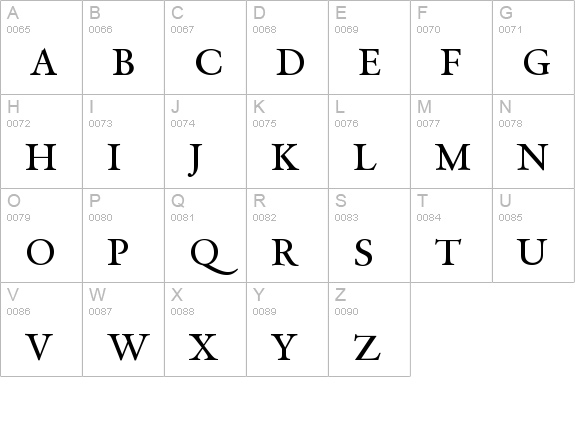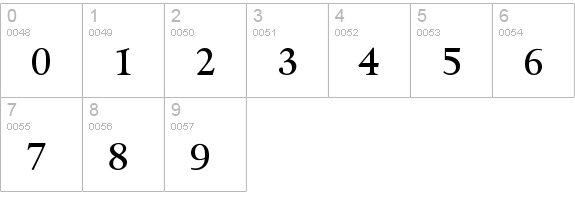
DTLVandenKeereD-Medium is a balanced, medium-weight variant in the DTLVandenKeereD typeface family \xE2\x80\x94 well suited to sub-headlines, navigation, and balanced editorial work.
DTLVandenKeereD-Medium is a classic and elegant font designed with meticulous attention to detail. With its balanced proportions and sophisticated serifs, this typeface exudes a timeless charm that is perfect for a wide range of design projects. The medium weight strikes a perfect balance between readability and style, making it ideal for both headings and body text. What sets DTLVandenKeereD-Medium apart is that it is freely available to download at FontsMarket.com. This means that you can easily access and use this high-quality font in your projects without any cost. Whether you're working on a branding project, print design, or digital content, DTLVandenKeereD-Medium is a versatile choice that will elevate the visual appeal of your work. Don't miss out on the opportunity to enhance your designs with this beautiful and professional font.